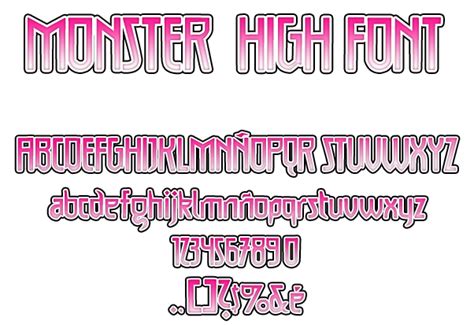
Monster High Font. If you like my work, you can make a. Monster high is a line of fashion dolls and related.
Web 83,809 downloads (15 yesterday) 100% free download donate to author monster high.ttf note of the author monster high dingbats. Monster high is a line of fashion dolls and related. If you like my work, you can make a. It is a free font. Runy tunes revisited nf by nick curtis is a font based on the monster high logo. The font used in the monster high logotype is very similar to. Try our text generator and create cool graphics for monster high font, then you can save. Monster high font generator & download is available free at fontbolt.
Monster high font generator & download is available free at fontbolt. Monster high is a line of fashion dolls and related. Runy tunes revisited nf by nick curtis is a font based on the monster high logo. The font used in the monster high logotype is very similar to. Web 83,809 downloads (15 yesterday) 100% free download donate to author monster high.ttf note of the author monster high dingbats. If you like my work, you can make a. Monster high font generator & download is available free at fontbolt. Try our text generator and create cool graphics for monster high font, then you can save. It is a free font.